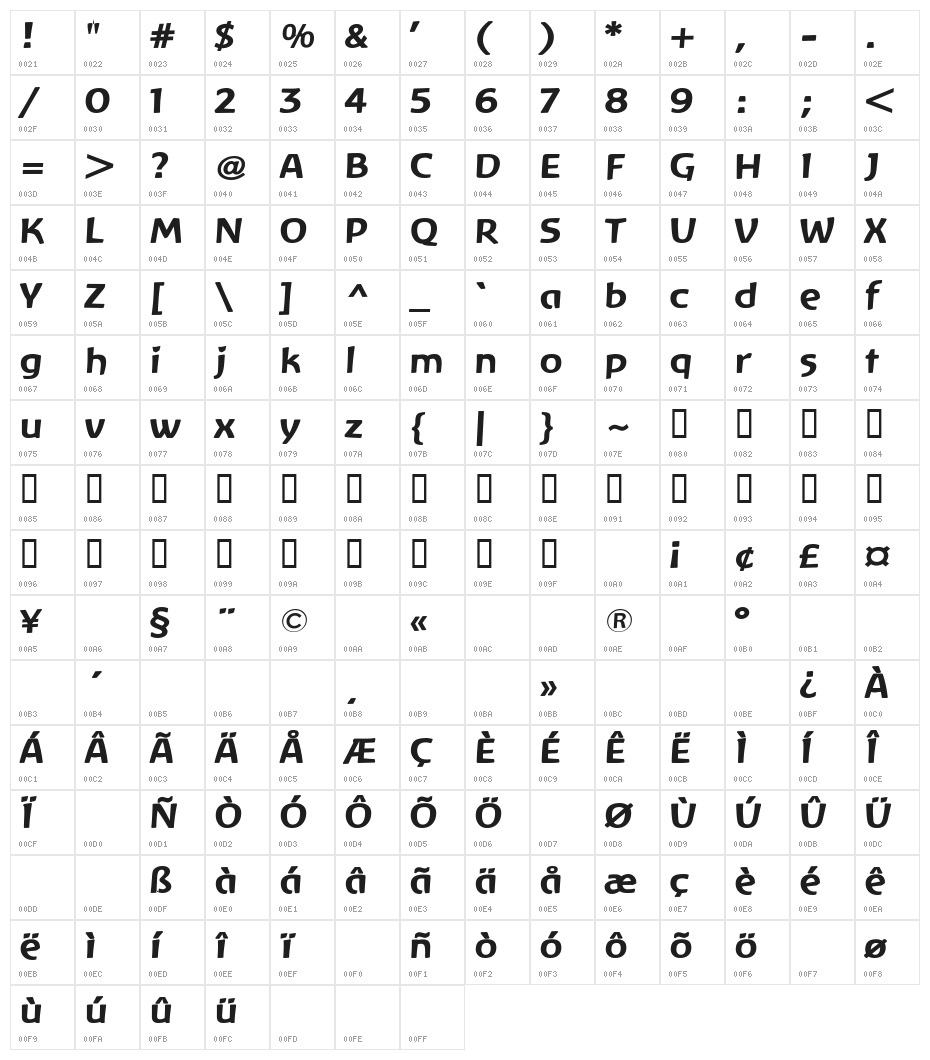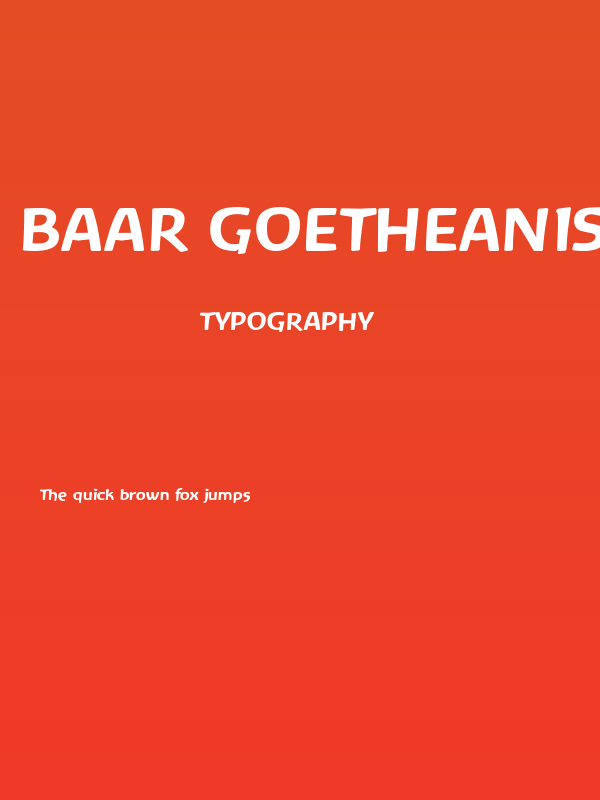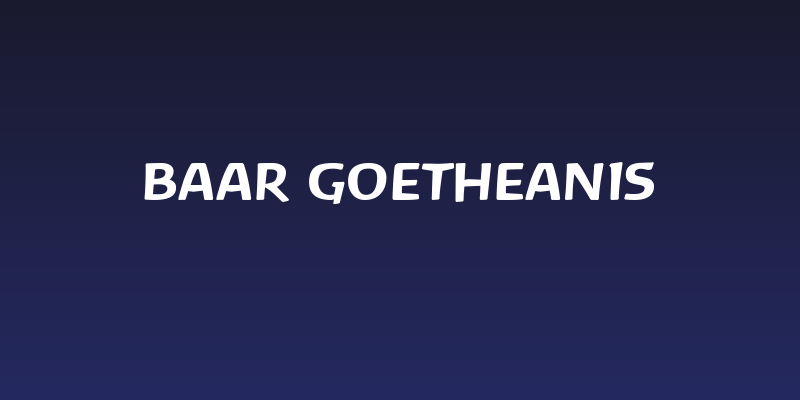
Baar Goetheanis Font
Baar Goetheanis Description
This font features a unique blend of modern and classic elements, characterized by its slightly curved and bold letterforms. The uppercase letters are robust and commanding, while the lowercase letters maintain a friendly and approachable appearance. The numerals are clear and distinct, ensuring readability across various applications. Special characters are well-integrated, maintaining the font's cohesive style. The overall design is versatile, making it suitable for both digital and print media.
| Proposed Projects | Ideal for branding, advertising, headlines, and digital content where a modern yet approachable look is desired. |